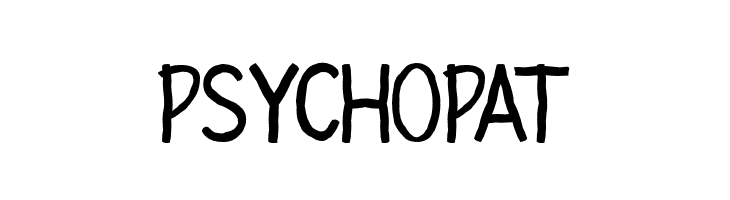
PSYCHOPAT Font
A bold, hand-drawn font with an energetic and playful style.
A dynamic, brush-like font with expressive, hand-drawn qualities.
Cepttoni Font
A fluid, handwritten-style font with elegant, connected letters.